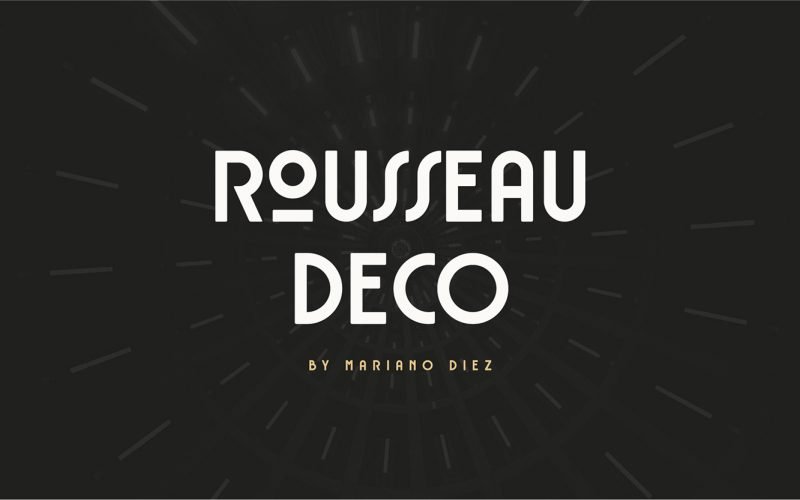
Rousseau Deco Font
Introducing Rousseau Deco Typeface. A stylish & modern of sans typefaces. designed to work as perfect companions or simply as strong standalone typefaces. Rousseau Deco created for poster, web design, branding, illustrations, badges and some other works.